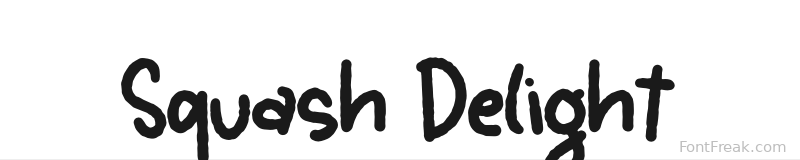
Squash Delight
About Squash Delight
Squash Delight is a captivating display font designed by Perspectype Studio, released in 2021 under Freeware licensing. This font falls into the decorative category, characterized by its playful and whimsical style that brings a sense of joy to any design project. The font features a hand-drawn quality with irregular stroke weights that add a unique charm, giving it a friendly and approachable appearance. The spacing is thoughtfully designed to ensure readability while maintaining a casual and fun vibe, making it perfect for various creative applications.
The visual characteristics of Squash Delight include rounded edges and a bouncy rhythm that enhances its delightful aesthetic. These elements make it an excellent choice for projects that require a lighthearted touch. Some ideal use cases for this font include wedding invitations, where its cheerful nature can convey warmth and celebration; movie posters, particularly for family-friendly films, where it can capture the fun essence of the storyline; restaurant menus, especially for casual dining establishments, where it can draw attention and create an inviting atmosphere; and children's book covers, where its playful personality resonates with young readers.
Targeting graphic designers, small business owners, and content creators, Squash Delight provides a versatile option for those looking to infuse their work with creativity and joy. It stands out in the crowded font landscape due to its distinctive hand-drawn style, making it memorable and engaging. By opting for the Squash Delight font free download, users can elevate their designs and captivate their audience effortlessly. Whether for print or digital media, this font invites creativity and delight, ensuring that every project is infused with a touch of charm.